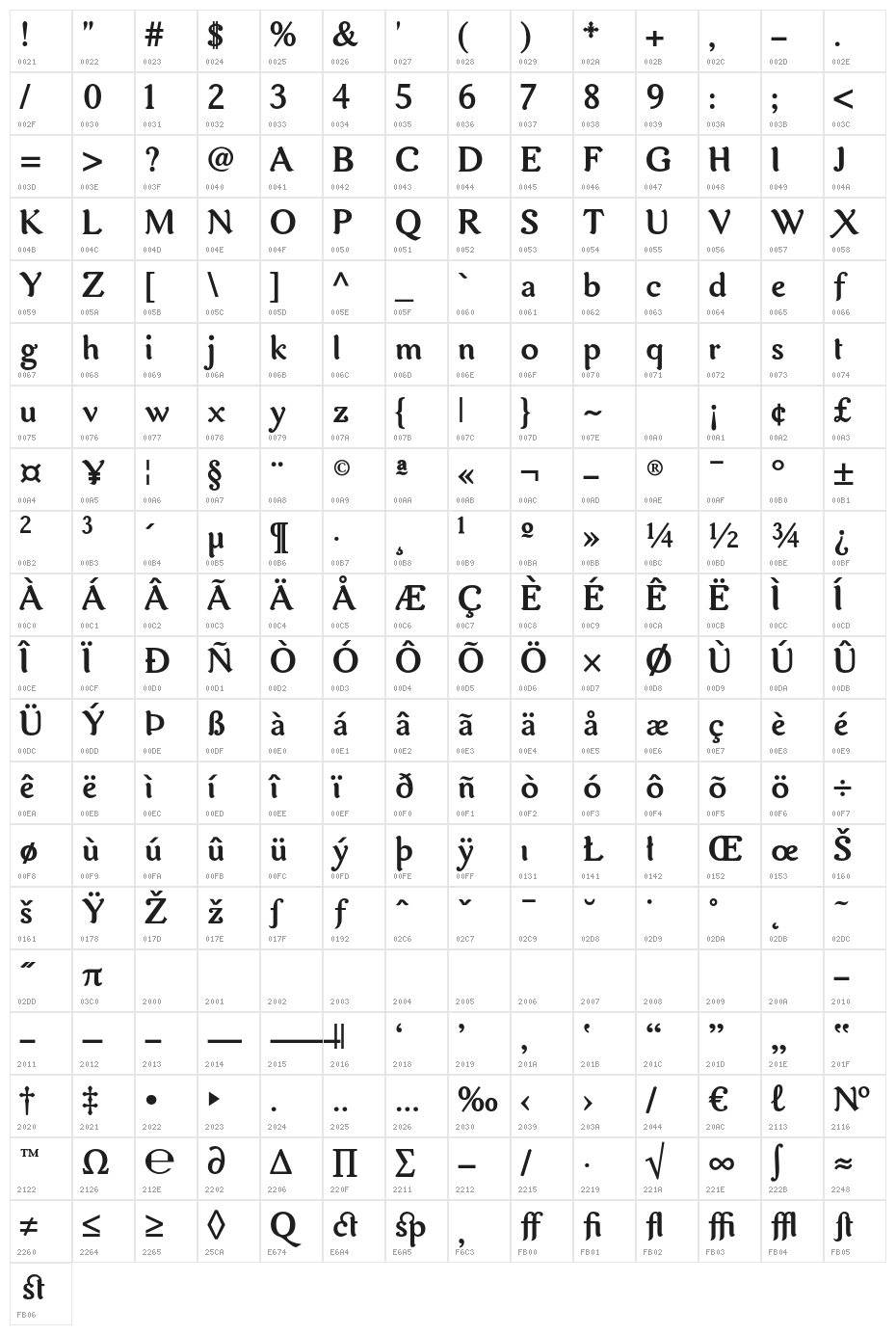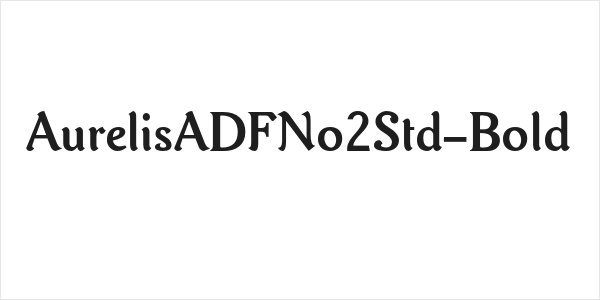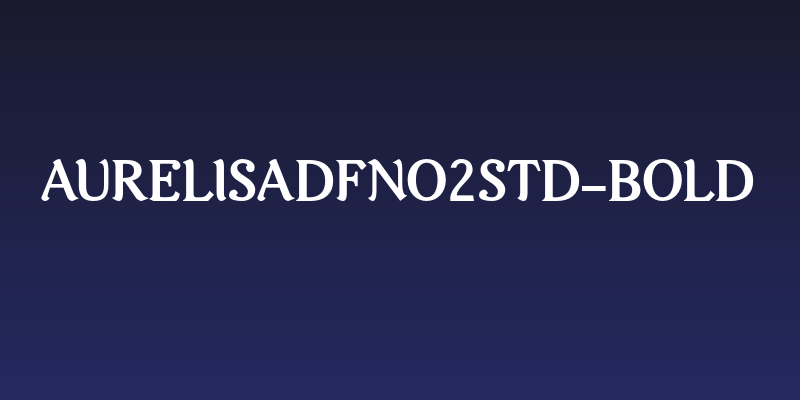
AurelisADFNo2Std-Bold Font
AurelisADFNo2Std-Bold Description
This font features a bold and elegant serif style with a classic touch. The characters are well-defined with a slight curvature, giving it a sophisticated and timeless appearance. The uppercase letters are strong and commanding, while the lowercase letters maintain a balanced and harmonious flow. The numerals are clear and distinct, making them easily readable. Special characters are designed with the same attention to detail, ensuring consistency across all glyphs. This font's bold weight and traditional serif elements make it suitable for a variety of design applications.
Overall StyleClassic
Proposed ProjectsIdeal for book covers, editorial design, branding, and formal invitations.